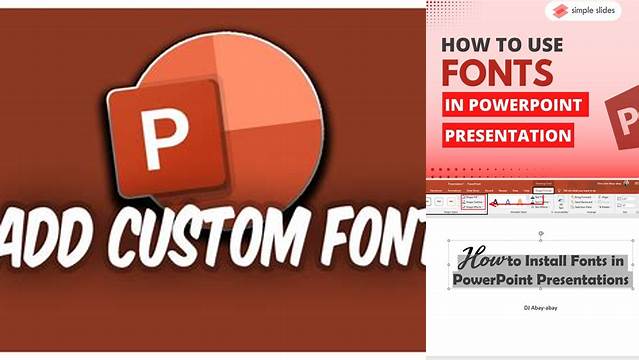
Install Custom Fonts In PowerPoint: A Simple Guide
Hey guys! Ever feel like your PowerPoint presentations are missing that special something? You know, that unique flair that makes your slides pop and truly capture your audience's attention? Well, chances are, the default fonts just aren't cutting it. That's where custom fonts come in! Using custom fonts in PowerPoint can elevate your presentation from bland to brilliant, helping you create a visual experience that's both professional and engaging. But how exactly do you get these awesome fonts into PowerPoint? Don't worry; this comprehensive guide will walk you through everything you need to know, from finding the perfect fonts to installing and using them in your presentations. We'll cover the different types of fonts, where to find them, step-by-step instructions for both Windows and Mac users, and even some troubleshooting tips to ensure a smooth experience. So, let's dive in and discover how to unlock the power of custom fonts in PowerPoint!
The importance of using custom fonts in PowerPoint presentations cannot be overstated. Custom fonts allow you to express your brand identity, create a unique visual style, and make your content more engaging. Think about it: a sleek, modern font can give your presentation a professional edge, while a playful, handwritten font can add a touch of personality. The right font can reinforce your message and help your audience connect with your content on a deeper level. Beyond aesthetics, custom fonts can also improve readability and accessibility. By choosing fonts that are clear, legible, and appropriate for your audience, you can ensure that your message is easily understood. This is especially crucial for presentations with a lot of text or for audiences with visual impairments. In addition, using custom fonts can help you stand out from the crowd. In a world where everyone is using the same default fonts, incorporating unique typefaces can make your presentations more memorable and impactful. This can be particularly beneficial for businesses looking to strengthen their brand recognition and create a consistent visual identity across all their marketing materials. So, whether you're aiming to enhance your brand, improve readability, or simply add a touch of creativity to your slides, custom fonts are a powerful tool to have in your PowerPoint arsenal.
Understanding Font Types
Before we jump into the installation process, let's quickly cover the different types of fonts you might encounter. Knowing the difference between them will help you choose the right fonts for your presentations and ensure they display correctly. The two main types are TrueType Fonts (TTF) and OpenType Fonts (OTF). TrueType Fonts (TTF) are one of the most common font formats, widely supported across various operating systems and applications. They were developed by Apple and Microsoft in the late 1980s and are known for their scalability and compatibility. TTF fonts use outlines to define the shapes of characters, which means they can be scaled to different sizes without losing quality. This makes them ideal for use in both print and digital media. OpenType Fonts (OTF) are a more advanced font format that builds upon the foundations of TrueType. Developed by Adobe and Microsoft, OTF fonts offer several advantages over TTF, including better support for international characters, advanced typographic features (such as ligatures and contextual alternates), and the ability to contain more glyphs (character variations) in a single font file. OTF fonts also use outlines to define characters, ensuring scalability and quality. In most cases, both TTF and OTF fonts will work seamlessly in PowerPoint. However, OTF fonts are generally preferred for their advanced features and broader support for different languages and characters. When downloading fonts, you might also encounter other formats, such as Web Open Font Format (WOFF and WOFF2), which are optimized for web use. While these formats are excellent for websites, they are not typically used for desktop applications like PowerPoint. So, when choosing fonts for your presentations, stick to TTF or OTF formats to ensure compatibility and optimal display.
TrueType Fonts (TTF)
TrueType Fonts (TTF) are a classic and widely supported font format that has been a staple in digital typography for decades. Developed in the late 1980s by Apple and Microsoft, TTF fonts were designed to provide a scalable and high-quality solution for displaying text across various devices and platforms. One of the key features of TTF fonts is their use of outlines to define the shapes of characters. This means that TTF fonts can be scaled to different sizes without losing their sharpness or clarity. Whether you're creating a presentation for a large screen or a small mobile device, TTF fonts will maintain their legibility and visual appeal. This scalability makes TTF fonts a versatile choice for a wide range of applications, from print design to web development to, of course, PowerPoint presentations. Another advantage of TTF fonts is their broad compatibility. Because they have been around for so long and are supported by virtually every operating system and application, you can be confident that TTF fonts will display correctly on almost any device. This is particularly important when you're sharing your PowerPoint presentations with others, as you want to ensure that your chosen fonts will render properly on their systems. While TTF fonts may not have all the advanced typographic features of more modern formats like OpenType, they are still a reliable and widely used option for creating professional-looking presentations. Their simplicity and compatibility make them a great choice for users who want a straightforward and hassle-free font solution. When selecting TTF fonts for your presentations, consider factors such as readability, style, and the overall tone you want to convey. With a vast library of TTF fonts available, you're sure to find the perfect typefaces to complement your content and enhance your message.
OpenType Fonts (OTF)
OpenType Fonts (OTF) represent a significant advancement in digital typography, building upon the foundations of TrueType fonts to offer a more versatile and feature-rich font format. Developed jointly by Adobe and Microsoft, OTF fonts were introduced in the mid-1990s and have since become the industry standard for professional typography. One of the key advantages of OTF fonts is their enhanced support for international characters. Unlike TTF fonts, which may have limited support for certain languages and scripts, OTF fonts can accommodate a much wider range of characters, making them ideal for multilingual documents and presentations. This is particularly important in today's globalized world, where businesses and organizations often need to communicate with diverse audiences. In addition to broader character support, OTF fonts also offer advanced typographic features that are not available in TTF fonts. These features include ligatures (special character combinations), contextual alternates (variations of characters that change based on their position in a word), and swashes (decorative extensions of characters). These advanced features allow designers and presenters to create more sophisticated and visually appealing typography, adding a touch of elegance and professionalism to their work. Another benefit of OTF fonts is their ability to contain a larger number of glyphs (individual character variations) in a single font file. This means that OTF fonts can include a wider range of stylistic variations, such as different weights, widths, and styles, all within the same font family. This makes it easier to maintain consistency and visual harmony throughout your presentations. While OTF fonts offer many advantages over TTF fonts, they are generally just as compatible with PowerPoint and other applications. However, it's always a good idea to test your fonts on different systems to ensure they display correctly. When choosing fonts for your presentations, consider the overall aesthetic you want to achieve and the message you want to convey. With their advanced features and versatility, OTF fonts can help you create visually stunning and impactful presentations that capture your audience's attention.
Paid Font Resources
For those who are serious about typography and want access to a wider range of unique and high-quality fonts, paid font resources are definitely worth considering. While free fonts can be a great starting point, paid fonts often offer more advanced features, greater stylistic variety, and more comprehensive licensing options. Let's explore some of the top paid font resources available today: Adobe Fonts (formerly Typekit) is a subscription-based service that gives you access to a vast library of fonts from some of the world's leading type foundries. With an Adobe Creative Cloud subscription, you can access thousands of fonts that are seamlessly integrated with Adobe applications like Photoshop, Illustrator, and InDesign. Adobe Fonts offers a wide range of font styles, from classic serif and sans-serif fonts to more modern and experimental designs. One of the great things about Adobe Fonts is that the fonts are automatically synced to your computer, making it easy to use them in your presentations and other projects. The service also offers unlimited font downloads, so you can experiment with different typefaces without worrying about extra fees. MyFonts is another popular option for purchasing fonts. It boasts one of the largest online collections of fonts, with a diverse range of styles and designs to choose from. MyFonts offers a variety of licensing options, so you can choose the license that best suits your needs. The site also features helpful tools like WhatTheFont, which can help you identify a font from an image. Creative Market is a marketplace where independent designers sell their fonts and other creative assets. Creative Market offers a wide variety of unique and handcrafted fonts that you won't find anywhere else. The site is a great place to discover new and emerging designers and support the independent creative community. Creative Market offers a variety of licensing options, so you can choose the license that best suits your needs. Another popular paid font resource is Fontspring. Fontspring is known for its user-friendly interface and its commitment to fair pricing and licensing. The site offers a wide range of fonts from independent foundries, and it makes it easy to compare different fonts and licensing options. When choosing a paid font resource, consider your budget, the types of fonts you need, and the licensing requirements. Paid fonts typically offer more comprehensive licensing options than free fonts, which can be important if you're using the fonts for commercial projects. It's also important to choose a font resource that offers high-quality fonts and reliable customer support.
Installing Custom Fonts on Windows
Okay, so you've found the perfect font – awesome! Now, let's get it installed on your computer. The process is pretty straightforward, whether you're using Windows or Mac. We'll start with Windows. Here's a step-by-step guide: First, you'll need to download the font file. Most fonts come in a zipped folder, so you'll need to extract the files first. Simply right-click the zipped folder and select “Extract All.” Choose a location to save the extracted files, such as your desktop or a dedicated fonts folder. Once you've extracted the files, you'll typically see one or more font files with extensions like .ttf (TrueType Font) or .otf (OpenType Font). These are the files you'll need to install. There are a couple of ways to install fonts on Windows. The easiest method is to simply right-click the font file and select “Install.” Windows will automatically install the font, and it will be available for use in all your applications, including PowerPoint. Alternatively, you can manually install the font by copying the font file to the Windows Fonts folder. To do this, open File Explorer and navigate to C:\Windows\Fonts. Then, simply copy the font file into this folder. Windows will automatically install the font. Once the font is installed, you should be able to see it in the font list in PowerPoint. If PowerPoint was open during the installation process, you may need to restart the application for the new font to appear. To use the font in your presentation, simply select the text you want to format and choose the font from the font dropdown menu. And that's it! You've successfully installed a custom font on Windows. Now you can start using it to create stunning PowerPoint presentations.
Step-by-Step Guide
Let's break down the step-by-step guide to installing custom fonts on Windows to make sure you've got it down pat. We'll cover each step in detail, so you can follow along easily. First things first, you need to download the font file. When you download a font from a website, it usually comes in a zipped folder. This is a compressed file format that helps to reduce the file size and make it easier to download. Before you can install the font, you'll need to extract the files from the zipped folder. To do this, simply right-click on the zipped folder and select “Extract All.” A window will pop up asking you where you want to save the extracted files. You can choose any location you like, such as your desktop, a dedicated fonts folder, or even a new folder you create specifically for this purpose. Once you've chosen a location, click the “Extract” button. Windows will then extract the files from the zipped folder and save them to the location you specified. Inside the extracted folder, you'll typically find one or more font files. These files will have extensions like .ttf (TrueType Font) or .otf (OpenType Font). These are the files you'll need to install to use the font in your applications. Now that you have the font files, it's time to install them on your system. There are two main ways to install fonts on Windows: using the right-click method or manually copying the files to the Fonts folder. The easiest method is to simply right-click on the font file (the .ttf or .otf file) and select “Install” from the context menu. Windows will then automatically install the font, and it will be available for use in all your applications, including PowerPoint, Word, and other programs that use fonts. If you prefer to install the font manually, you can copy the font file to the Windows Fonts folder. To do this, open File Explorer and navigate to the Fonts folder. The Fonts folder is located in the Windows directory, typically at C:\Windows\Fonts. Once you've opened the Fonts folder, simply copy the font file into the folder. Windows will automatically install the font. After the font is installed, it should be available in the font list in PowerPoint and other applications. If PowerPoint was open during the installation process, you may need to restart the application for the new font to appear. To use the font in your presentation, simply select the text you want to format and choose the font from the font dropdown menu. And that's it! You've successfully installed a custom font on Windows. Now you can start using it to create stunning presentations.
Key Takeaways
Let's recap the key takeaways from this guide to ensure you've got a solid grasp on how to use custom fonts in PowerPoint. We've covered a lot of ground, so a quick review will help solidify your understanding and make you a custom font pro. First and foremost, understand the difference between font types. We discussed TrueType Fonts (TTF) and OpenType Fonts (OTF), highlighting their features and compatibility. OTF fonts are generally preferred for their advanced features and broader support for different languages, but TTF fonts are still widely used and compatible. Next, know where to find custom fonts. We explored both free and paid resources, including Google Fonts, Font Squirrel, Adobe Fonts, MyFonts, and Creative Market. Each resource offers a unique selection of fonts, so choose the one that best suits your needs and budget. Master the installation process for both Windows and Mac. We provided step-by-step guides for installing fonts on each operating system, ensuring you can get your fonts up and running smoothly. Remember to restart PowerPoint if it was open during the installation process. Learn how to apply fonts to text in PowerPoint. We covered the steps for selecting text, accessing the font dropdown menu, and choosing your custom font. We also discussed how to set default fonts to maintain consistency throughout your presentation. Consider embedding fonts in your PowerPoint file. This optional step ensures that your presentation will display correctly on computers that don't have your custom fonts installed. We discussed when to embed fonts and how to choose the appropriate embedding options. Finally, don't be afraid to experiment and get creative with your fonts. Custom fonts are a powerful tool for enhancing your presentations, so have fun exploring different styles and combinations. By keeping these key takeaways in mind, you'll be well-equipped to use custom fonts effectively in your PowerPoint presentations. So go forth, create stunning slides, and captivate your audience with your typography skills!